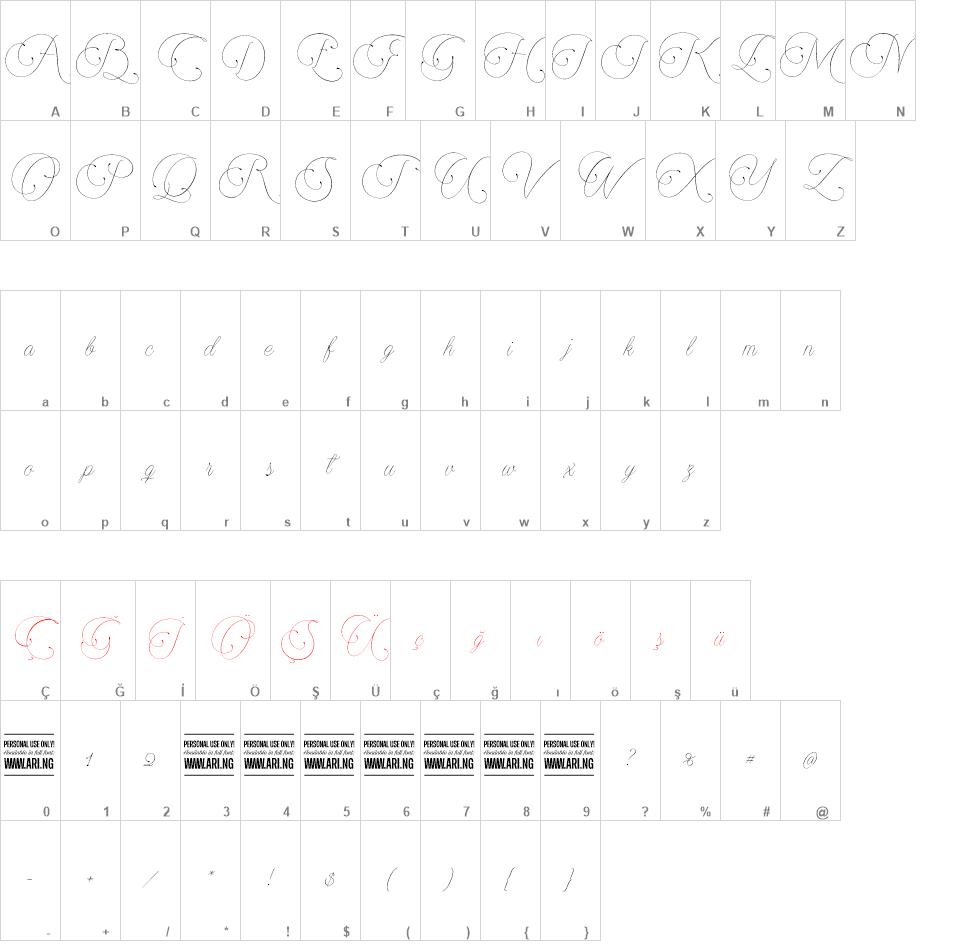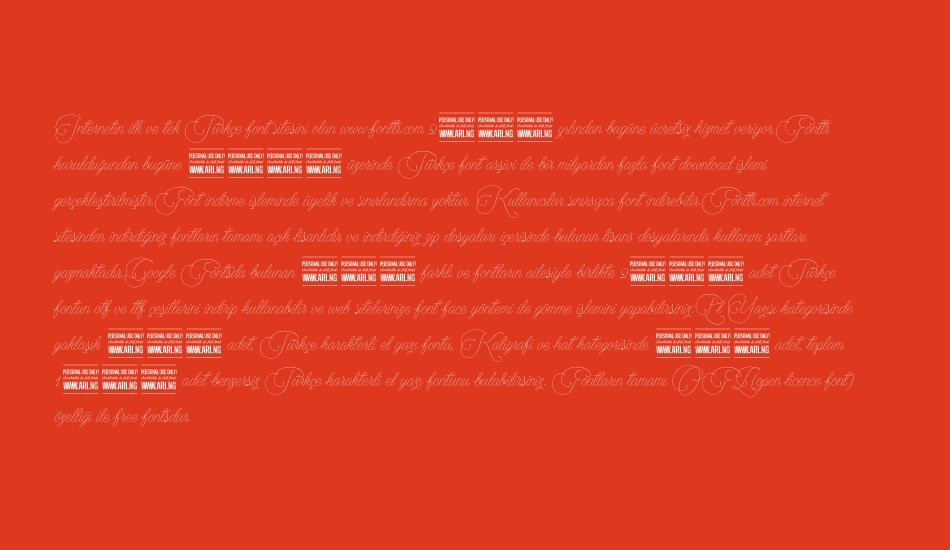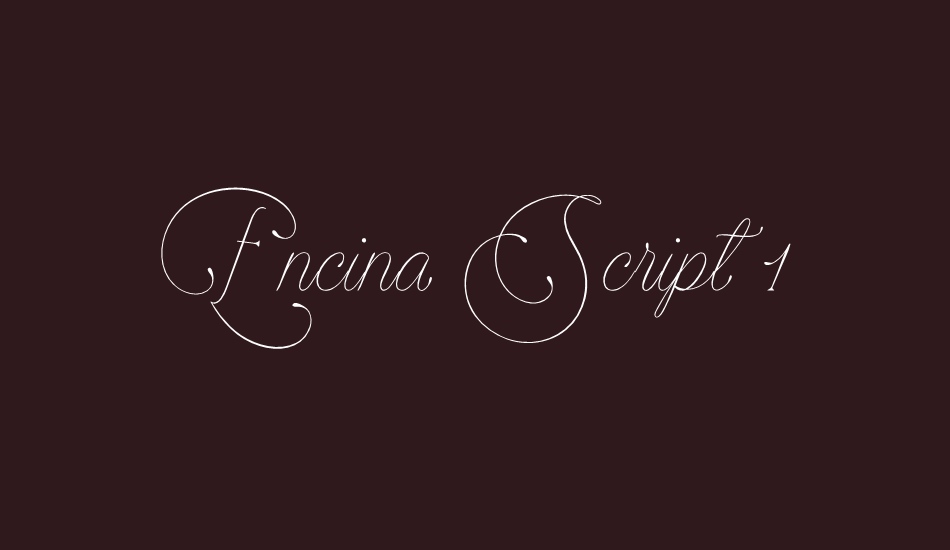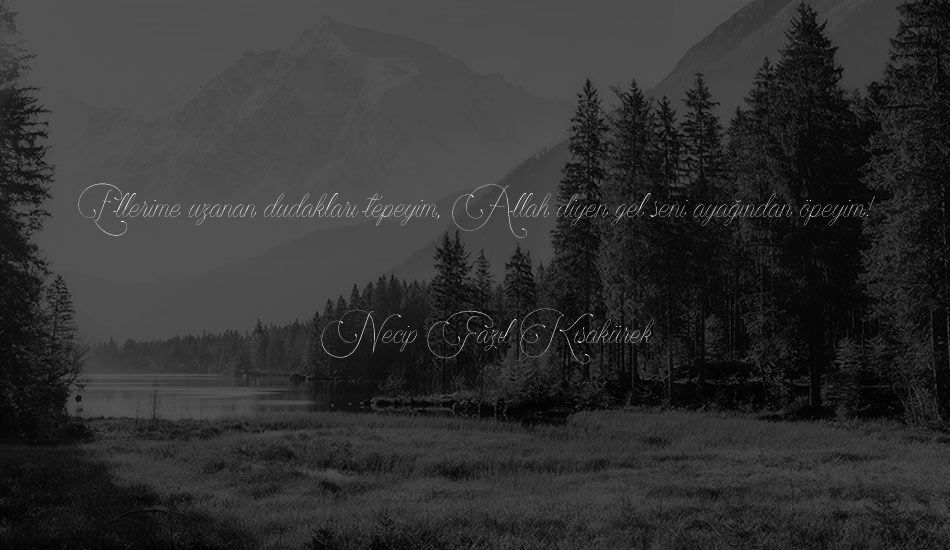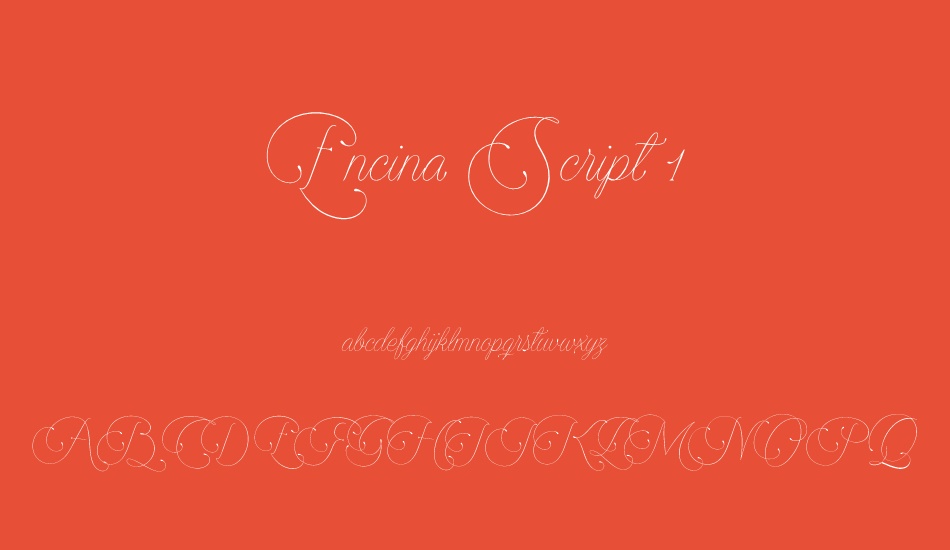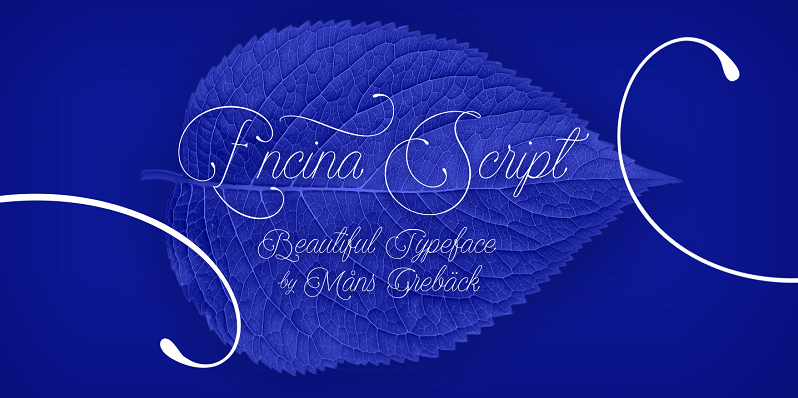
Encina Script font
Encina Script is a formal calligraphy typeface, carefully designed by M?ns Greb?ck.
Its swirly, thin strokes organically makes up large and delicate letters.
Encina Script works perfectly in magazines, invitations and logotypes that require an elegant twist.
It comes in two versions, with two different sizes of the upper case alphabet, to make it work in all contexts.
The typeface's contextual alternates makes every word begin and finish in a natural and beautiful way.